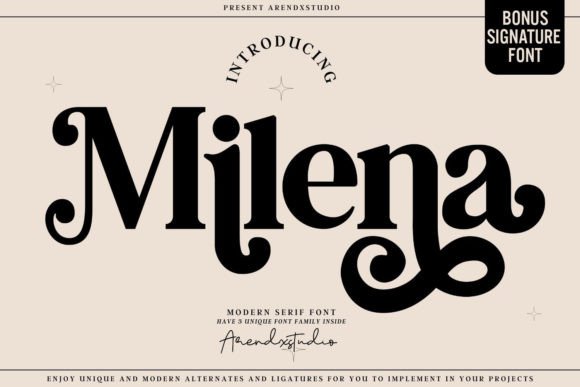
In a world saturated with monotonous and mundane fonts, Milena Font emerges as a beacon of creativity, a symphony of elegance and charm. This exquisite serif family font is meticulously crafted to elevate your designs to unprecedented heights, leaving an enduring impression on your audience.
With its graceful curves and refined details, Milena Font exudes an aura of sophistication and timelessness. Its meticulously crafted letterforms dance harmoniously on the page, creating a visual feast that captivates the eyes and stirs the soul. Whether gracing the pages of a wedding invitation, adorning the packaging of a luxury product, or adding a touch of elegance to your social media posts, Milena Font transforms ordinary words into works of art.
Immerse yourself in the boundless versatility of Milena Font, a font family that effortlessly adapts to a myriad of design projects. From the delicate strokes of a personal logo to the bold statements of a marketing campaign, Milena Font seamlessly molds itself to your creative vision. Its inherent elegance lends a touch of refinement to branding projects, while its playful charm enlivens social media posts and advertisements. Unleash your imagination and explore the endless possibilities that await you with Milena Font.
Step into the world of Milena Font and discover a font family that speaks to your heart. Its intricate details and flowing lines evoke a sense of nostalgia, a longing for simpler times. Whether you're a seasoned designer seeking to elevate your work or a passionate hobbyist yearning to add a touch of uniqueness to your creations, Milena Font is your steadfast companion on this creative journey.
With Milena Font, the boundaries between ordinary and extraordinary blur, making way for designs that resonate with your audience. Its timeless beauty transcends trends, ensuring that your creations remain relevant and captivating for years to come. Embrace the power of Milena Font and unlock a world of creative possibilities.